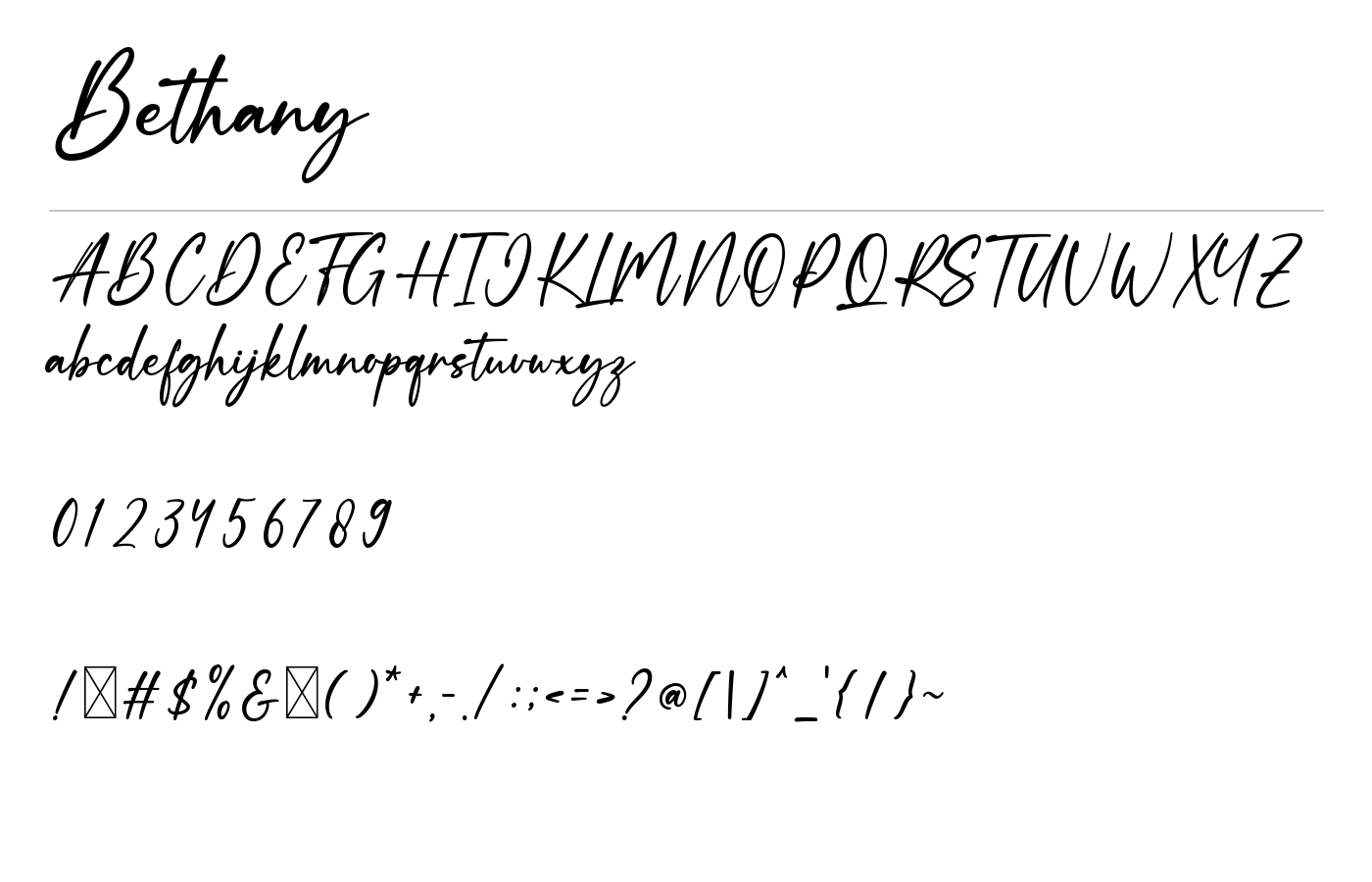
Bethany Font is a graceful script typeface with a handwritten, flowing style that feels elegant yet approachable. Its slender strokes and natural, slightly irregular letterforms give it a personal, artistic touch, making it ideal for branding, invitations, and projects that seek a charming, sophisticated vibe. This font works beautifully in headlines and logos where a stylish, modern calligraphy look is desired.
Bethany Font
About Bethany Font